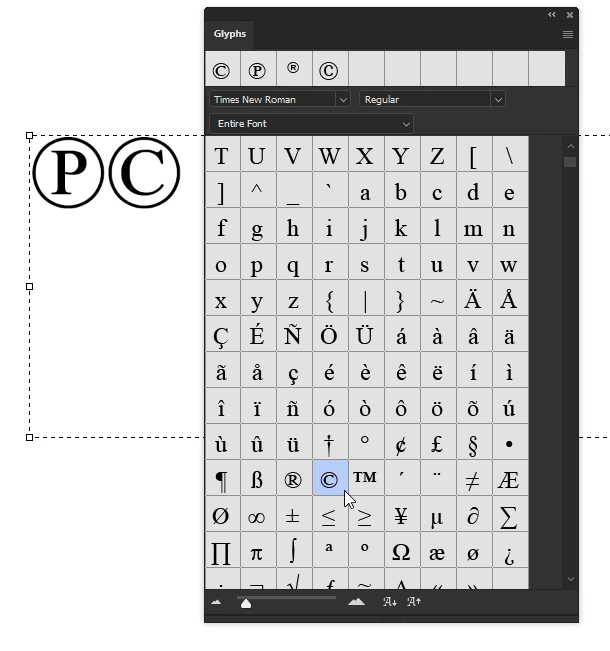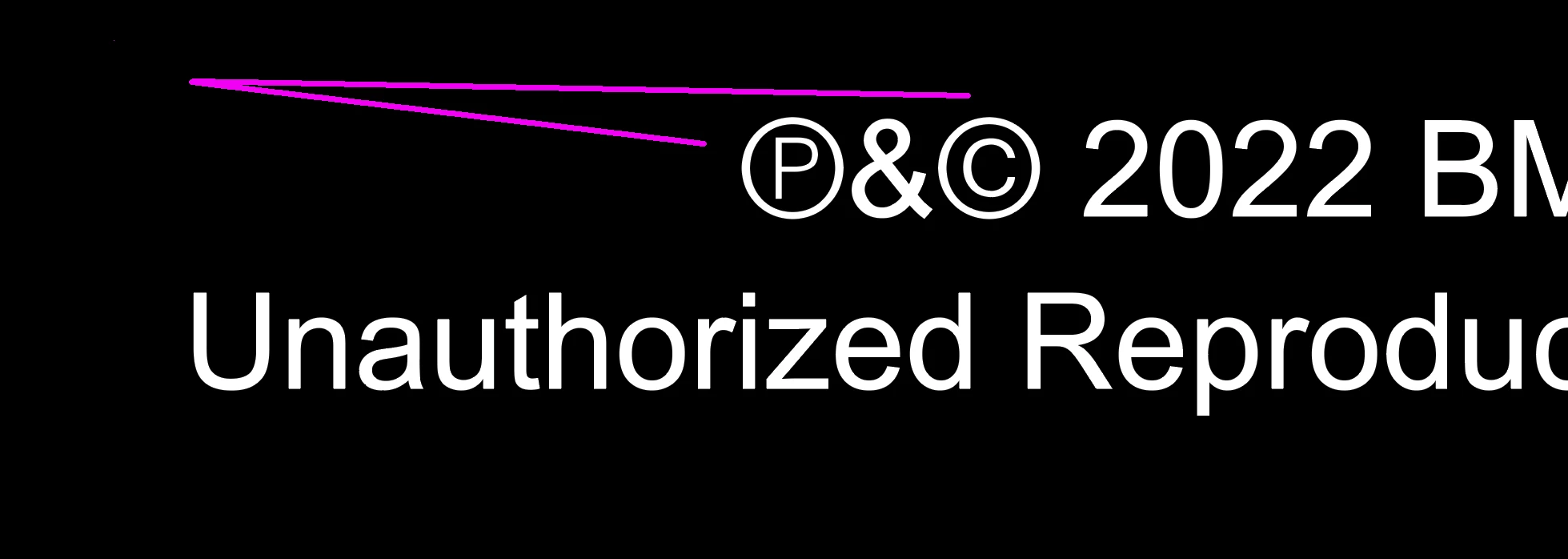
Circle p and c font?
I'm looking for a replacement for the circle p and circle p san serif postscript font I use with suitcase, used primarily in legal lines.
Adobe Fonts offers alternatives like "Proxima Nova," "Futura," or "Avenir," which have a similar geometric, sans-serif style ideal for legal lines. Simply search for these fonts on the Adobe Fonts website, activate them, and test them in your documents to ensure they meet your requirements.
Helvetica (T1) Regular has one - even on old fonts
Bundesbahn Pi 3 has all letters available in circles
Hi Tarun, here is an example.
Hi @dalev1856 Those symbols will be found in the Glyphs panel in Adobe applications such as Photoshop, Illustrator, and InDesign. I found both symbols with Times New Roman. Depending on the font you are using, it may or may not have both symbols. But you can swap in TNR's versions (and look in other fonts, too, for their versions) and adjust the point size accordingly. Hope that's helpful!